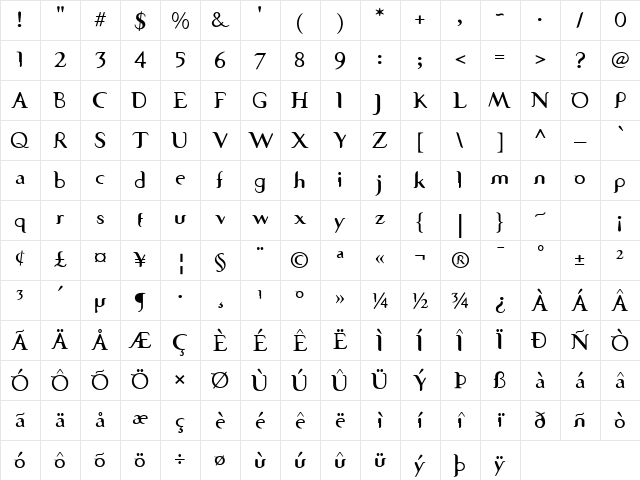
SevenSerifICG Bold
Design Context for SevenSerifICG
SevenSerifICG carries the refined structure of traditional serif typography, with bracketed terminals and considered proportions that communicate credibility and craft. Its bold stroke weight gives it real presence on the page.